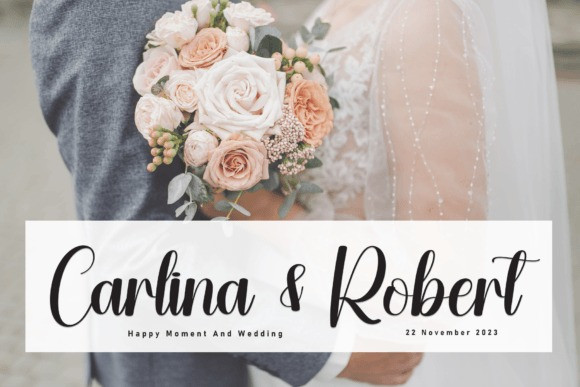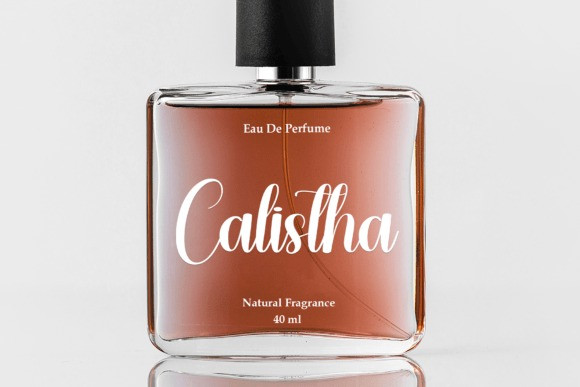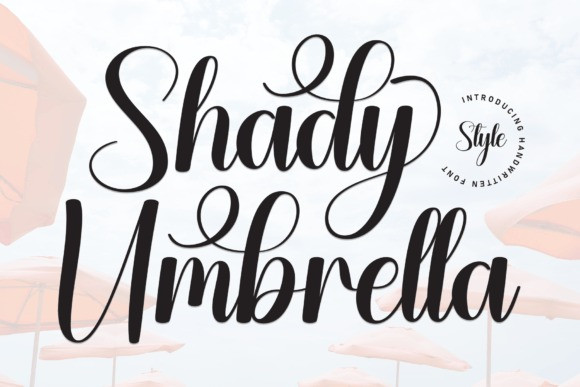
Shady Umbrella Font
Shady Umbrella Font is a sophisticated handwritten font that effortlessly blends elegance with a touch of mystery. With graceful curves and impeccable strokes, each letter exudes a timeless charm, making it the perfect choice for projects that demand a dash of class and a hint of intrigue. Let Shady Umbrella add a touch of sophistication to your designs with its unique and stylish flair.